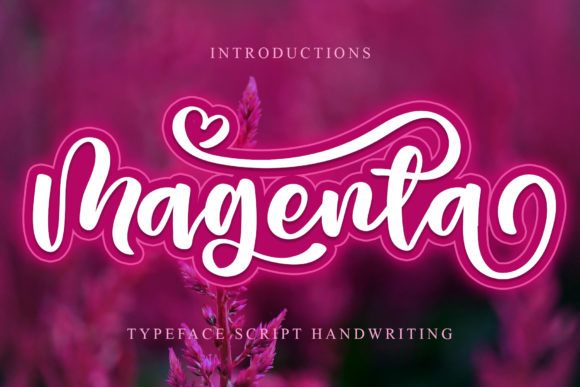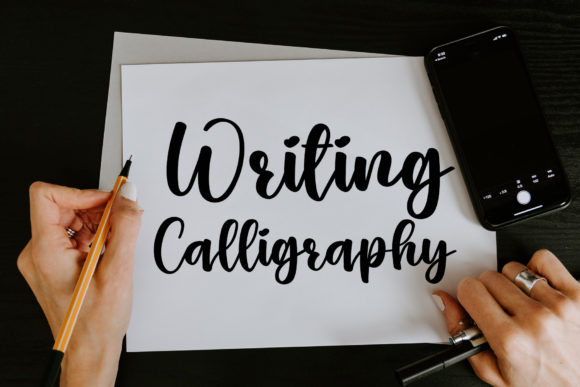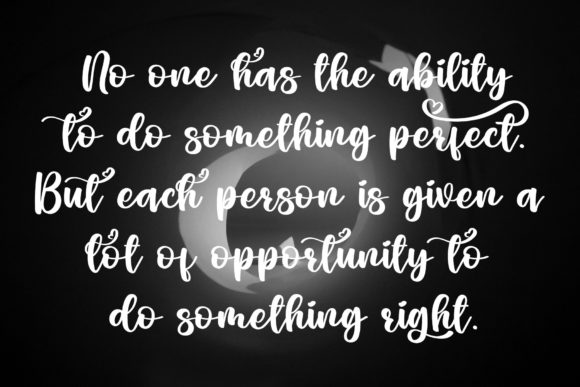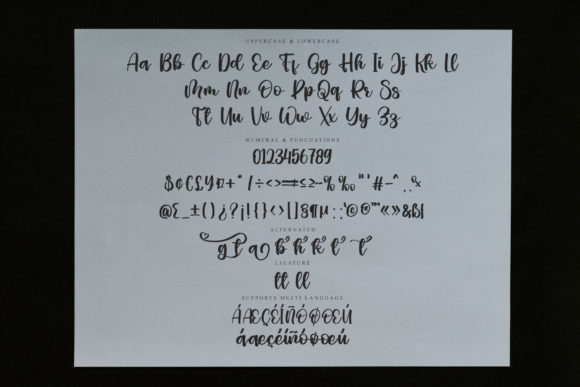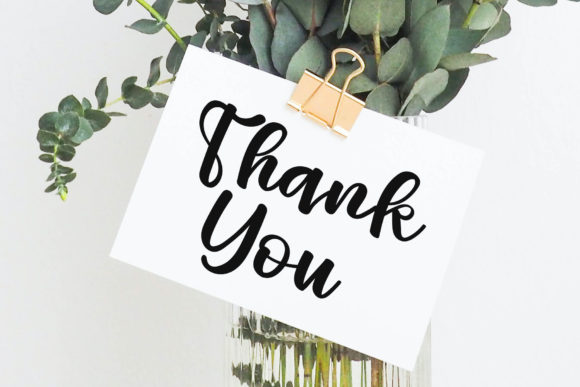
About Magenta Font
Meet Magenta, a captivating and sweet calligraphy typeface designed to bring a romantic touch to your creative projects. With characters that gracefully dance along the baseline, Magenta introduces a sense of fluidity and elegance that adds a luxurious spark to any design endeavor.
The charm of Magenta lies in its delicate yet expressive strokes, creating an atmosphere of romance and sophistication. Whether you’re crafting wedding invitations, love-themed branding, or any project that requires a tender and refined aesthetic, this font becomes a key element in elevating the overall visual experience.
Magenta is more than just a typeface; it’s a source of inspiration that effortlessly infuses a sense of luxury into your designs. Its graceful letterforms convey a timeless beauty, making it the perfect choice for those seeking to evoke emotions and create a lasting impression.
One standout feature of Magenta is its PUA encoding, which enhances the user experience by providing easy access to a rich array of glyphs and ligatures. This encoding ensures that every designer, regardless of their expertise level, can explore and implement the font’s full range of creative possibilities seamlessly.
Whether you’re a seasoned professional or a design enthusiast embarking on a new project, Magenta invites you to unleash your creativity. Use it to add a touch of romance and sophistication to your designs, creating an aesthetic that resonates with beauty and charm.
In conclusion, Magenta is not just a typeface; it’s a romantic companion for your design journey. Let its characters waltz along your projects, leaving a trail of elegance and luxury. Embrace the enchantment of Magenta as it becomes a valuable asset, enhancing the visual allure of your creations and making each design project a truly special and memorable experience.